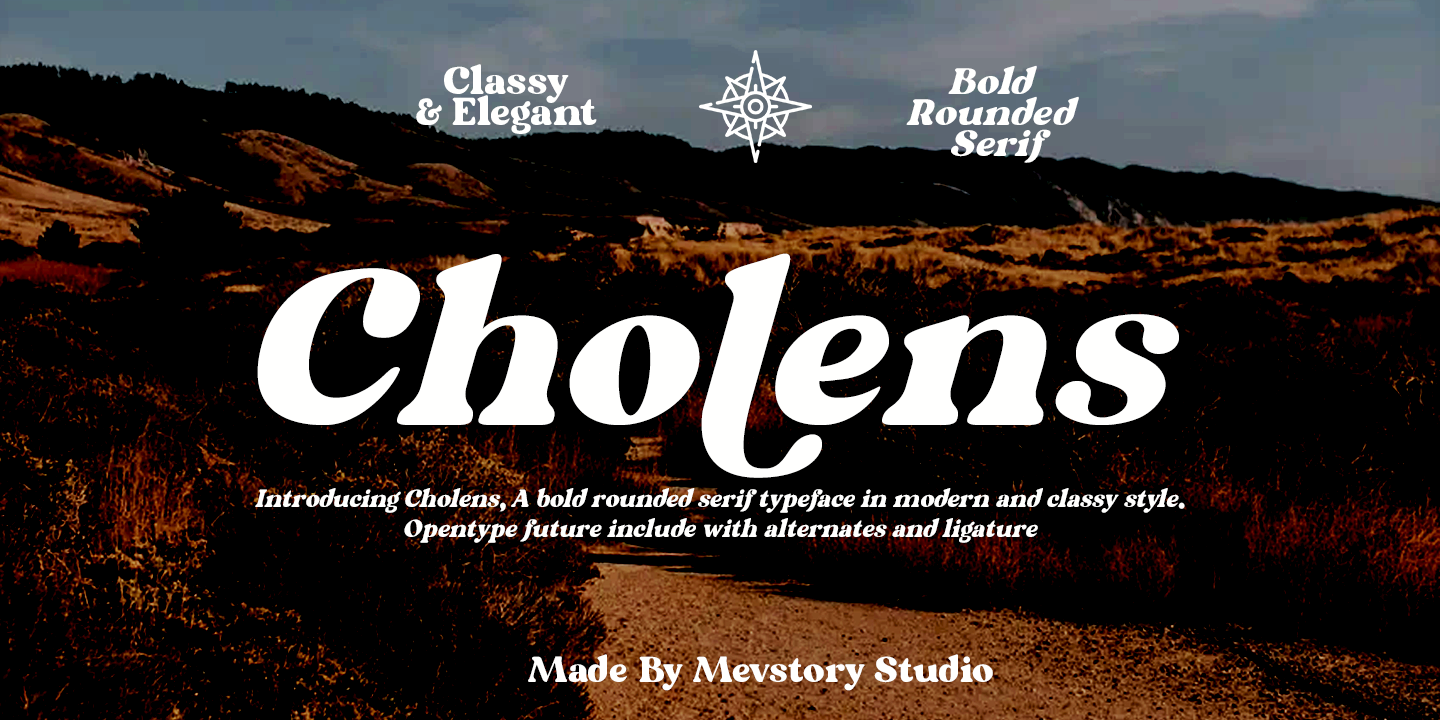
Looking for a modern, sleek typeface with clean lines and a strong presence? Cholens Font Free Download is the ideal choice for branding, tech startups, modern websites, fashion labels, and minimalist packaging. Its contemporary structure and balanced proportions give your designs a polished, professional look with just the right amount of edge.
Whether you're working on a high-end brochure, a sleek logo, or a digital campaign, Cholens Font Free Download delivers clarity, sophistication, and impact.